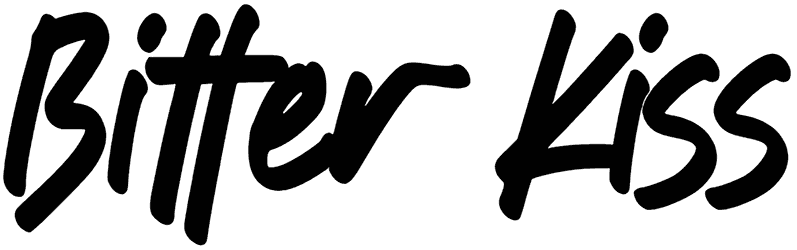
Bitter Kiss Font
Bitter Kiss is the ideal marker font for adding a bit of whimsy to any project. Bitter Kiss, with its combination of lowercase and uppercase characters, is the font that will bring your design to life, whether you’re developing a wedding invitation or a humorous logo for your business, despite its lack of some numerical characters.